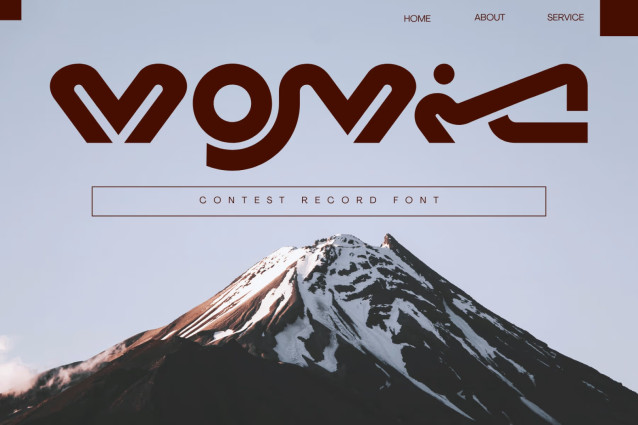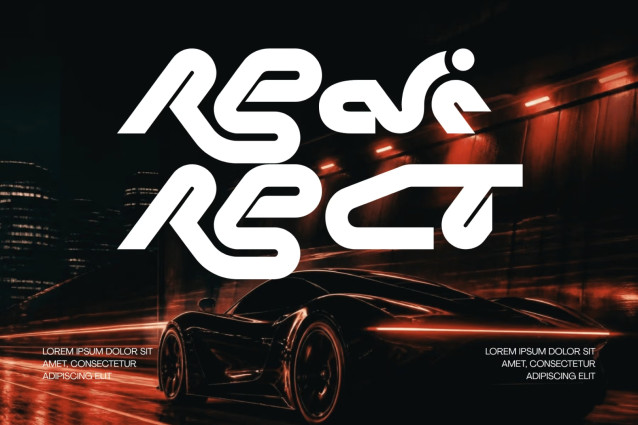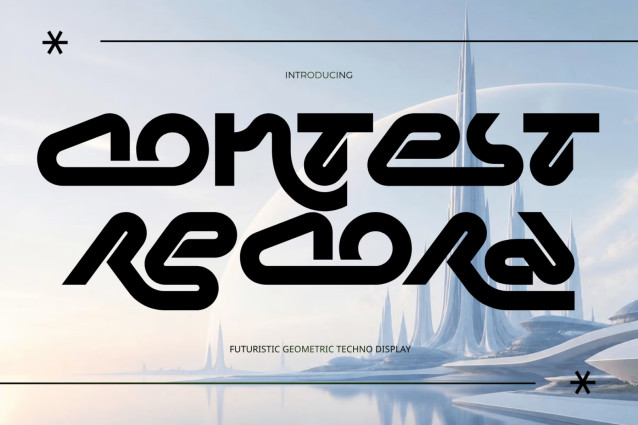
Contest Record – Futuristic Font
Contest Record – Futuristic Font – Futuristic Sci-Fi Loop & Experimental Cyber Display Font is a visionary, high-concept display typeface engineered at the cutting-edge intersection of cybernetic loop geometry, futuristic sci-fi typography, and aerodynamic techno aesthetics. Defined by its continuous tubular ribbon strokes, precision-angled cutouts, and seamless interlocking character flows, this font delivers an unmatched sci-fi energy and high-tech presence.
Designed to effortlessly transform display headlines into custom futuristic logotypes, Contest Record merges smooth circuit-like curves with sharp, aggressive terminals. Its bold monoline proportions and distinct inner slits make it the definitive typographic choice for esports team brandings, sci-fi gaming titles, electronic music festival posters, techwear apparel graphics, futuristic movie key visuals, and avant-garde editorial covers.